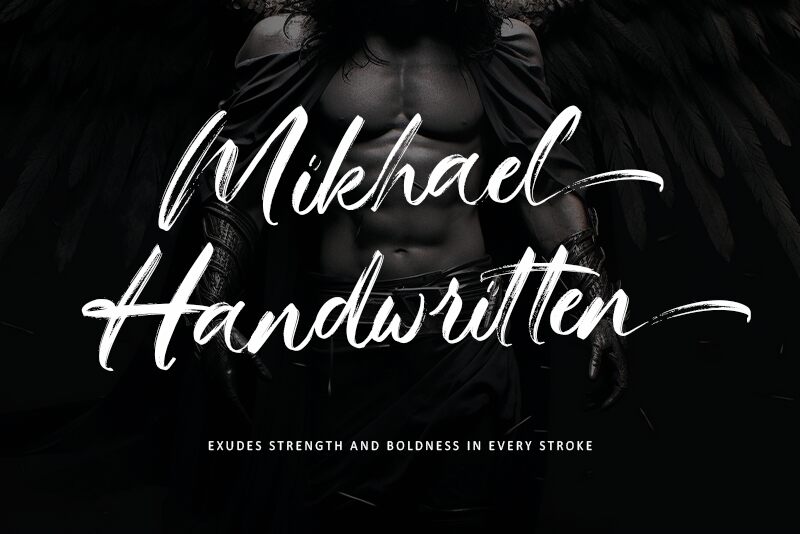
Mikhael Handwritten font by Letterara is a free handwritten font that captures the beauty and intricacy of classic handwriting. Its decorative elements appear with the assistance of an expressive flair that remains elegant and still personal like its hand-made sketches. A lot of effort was put into every letter possible, as showcased by its elegant characters.
Create with style every design you can think of using Mikhael: wedding invitations, shopping offers, magazine headers, online e-mail or printed newsletters, books covers, bookmarks designs, art gallery invitations cards and posters or fine art photography covers.